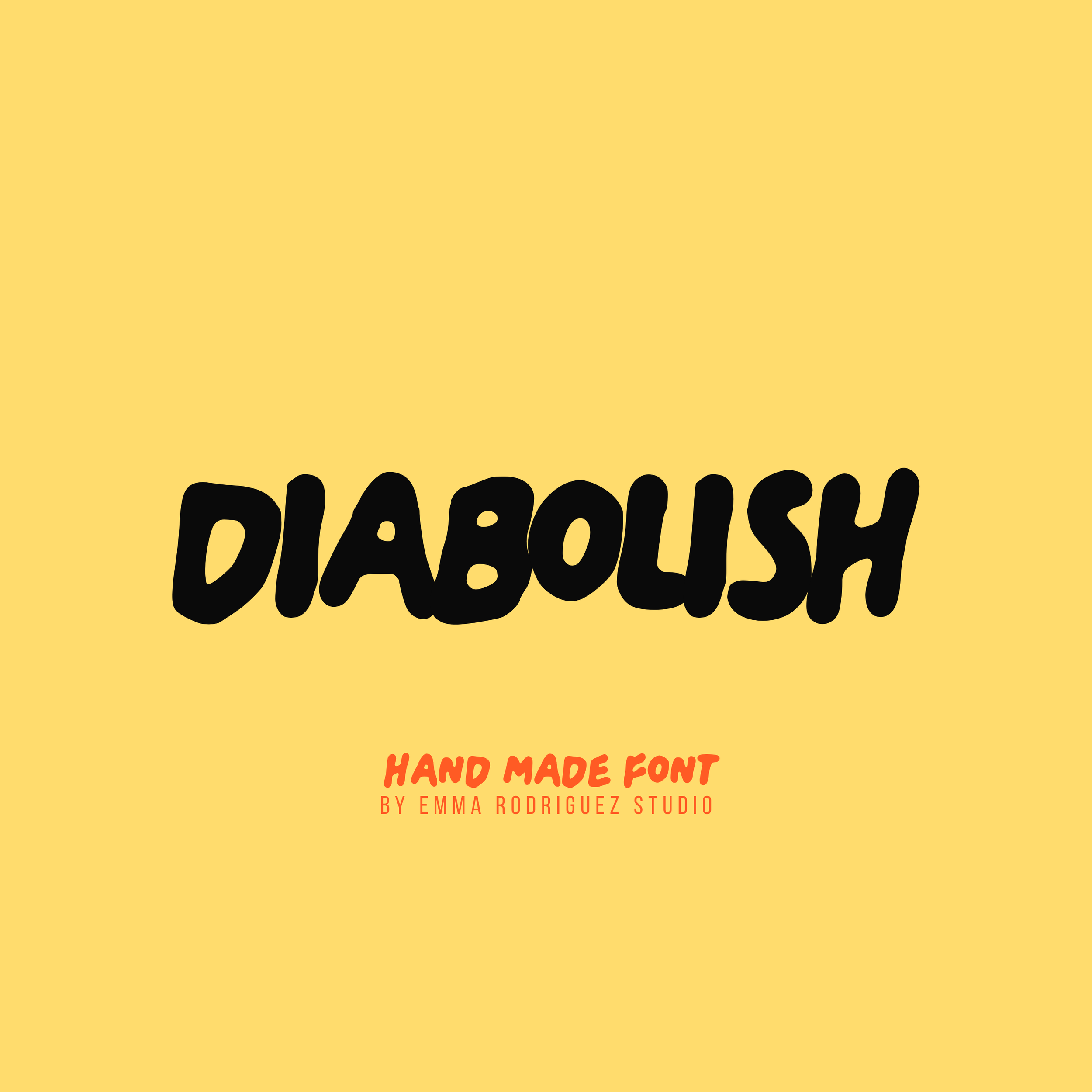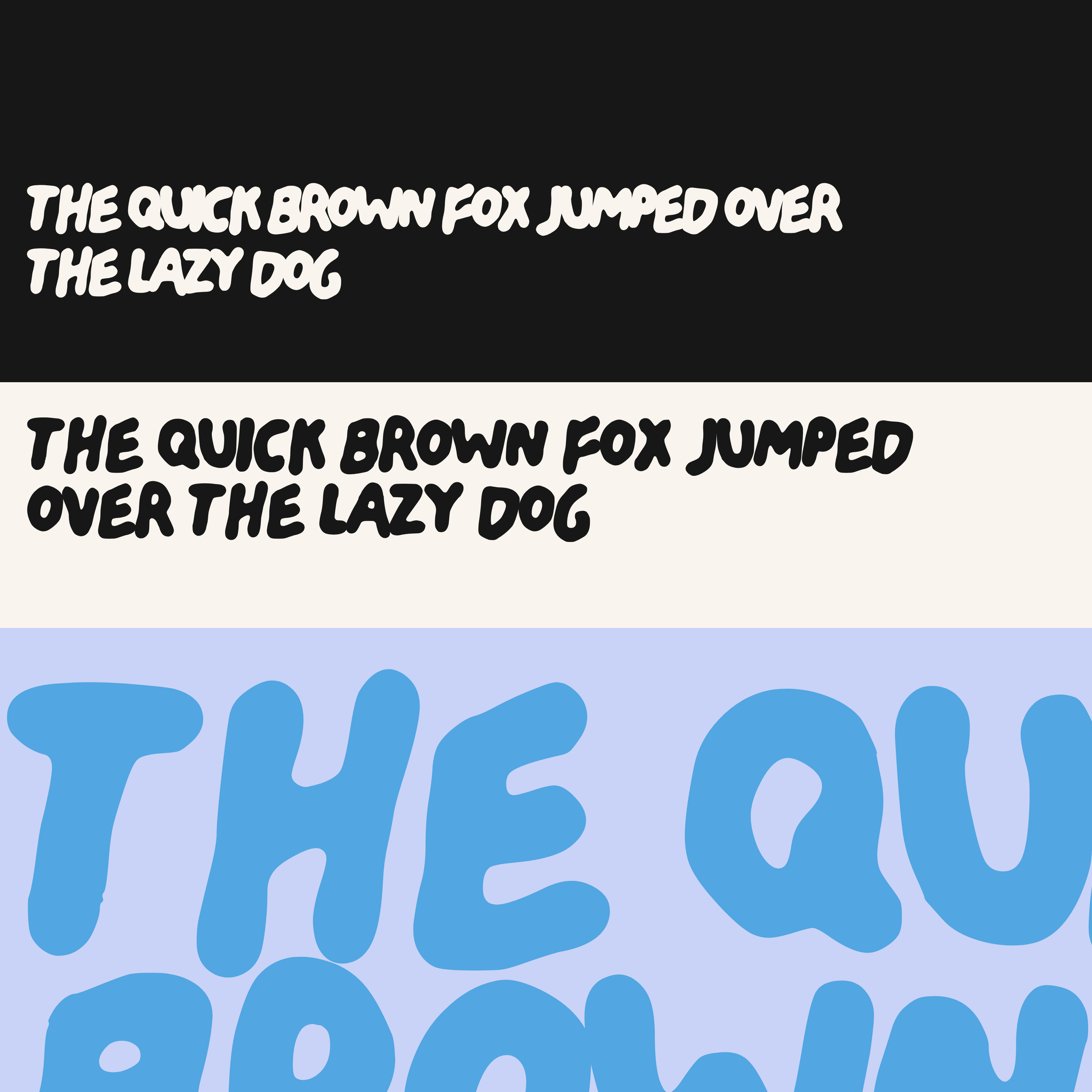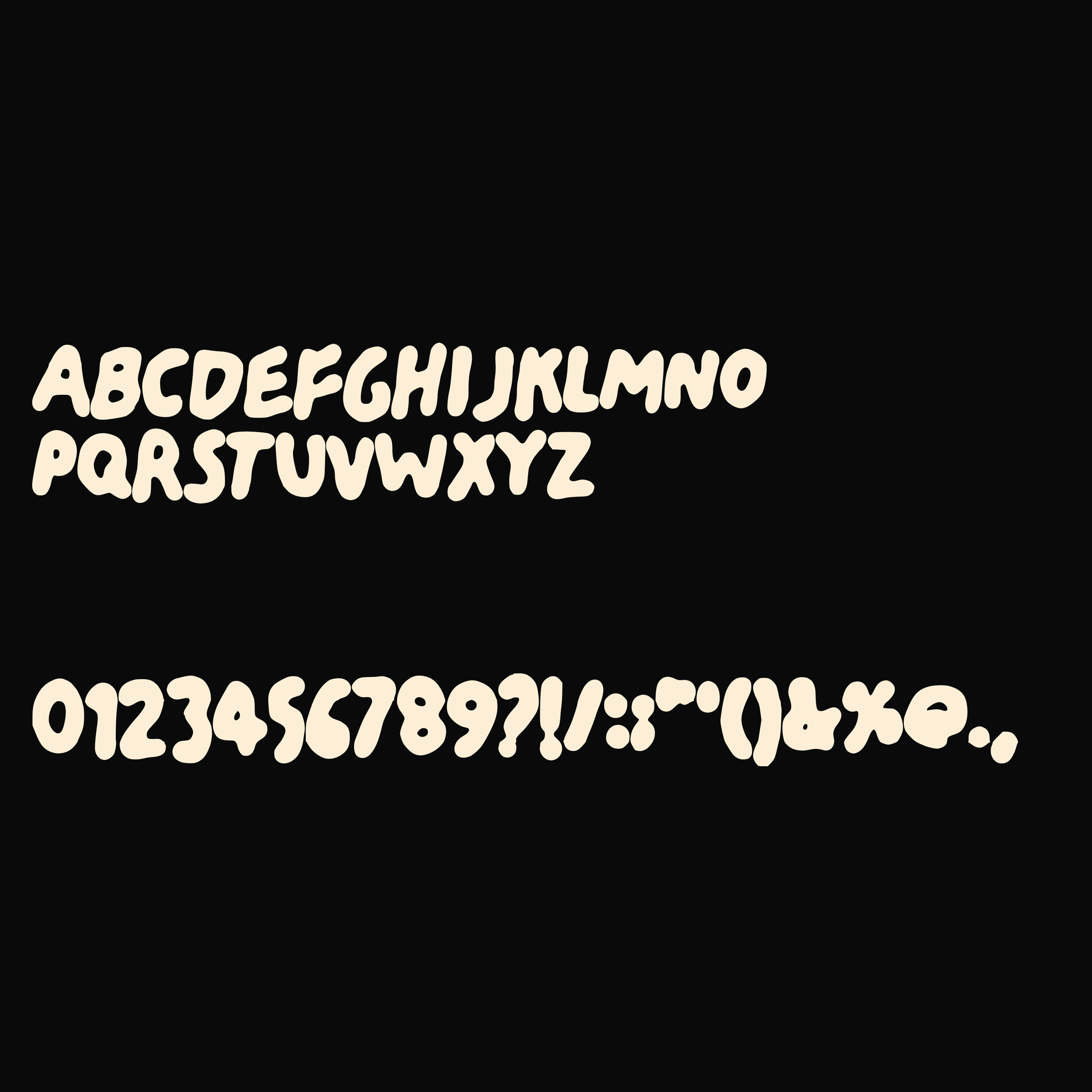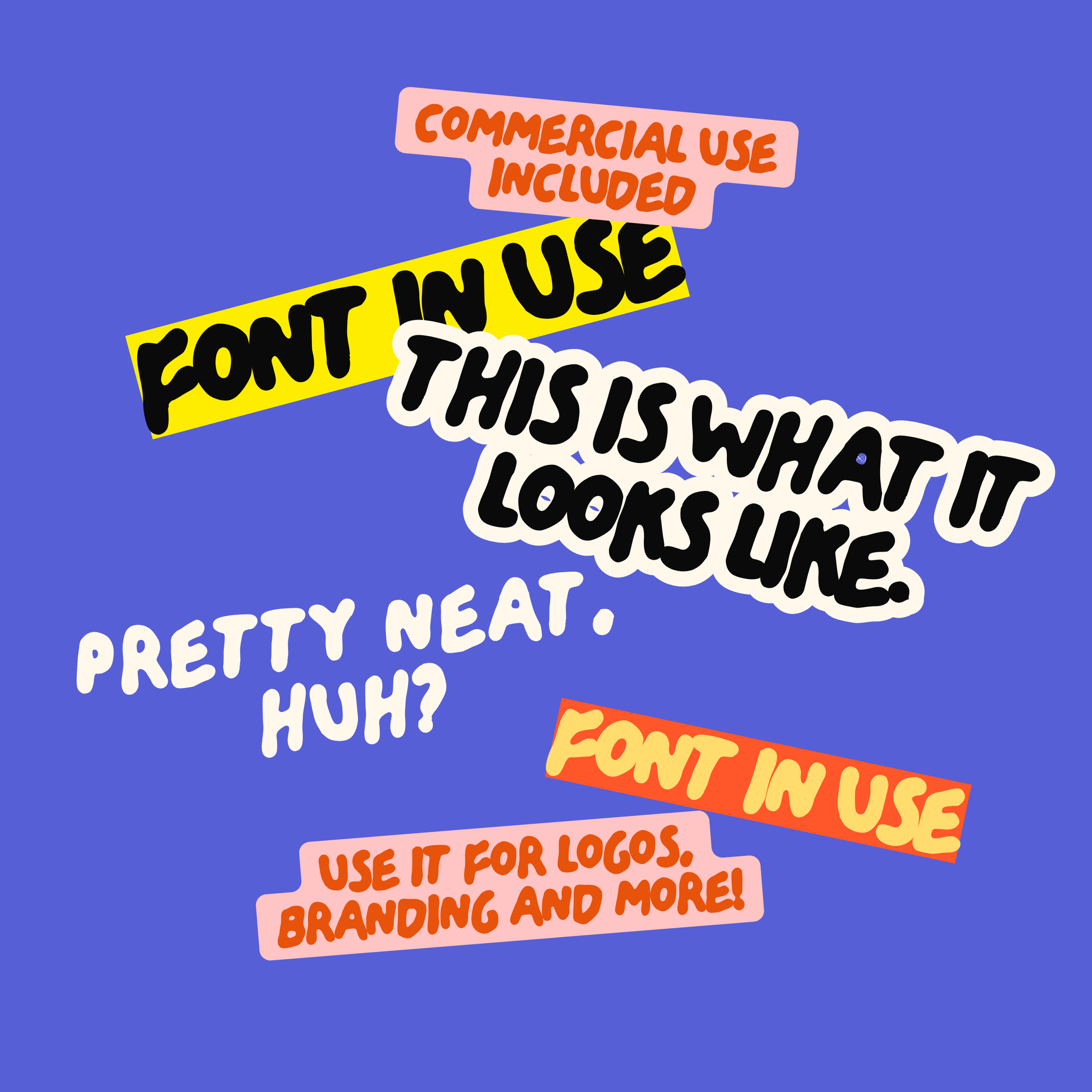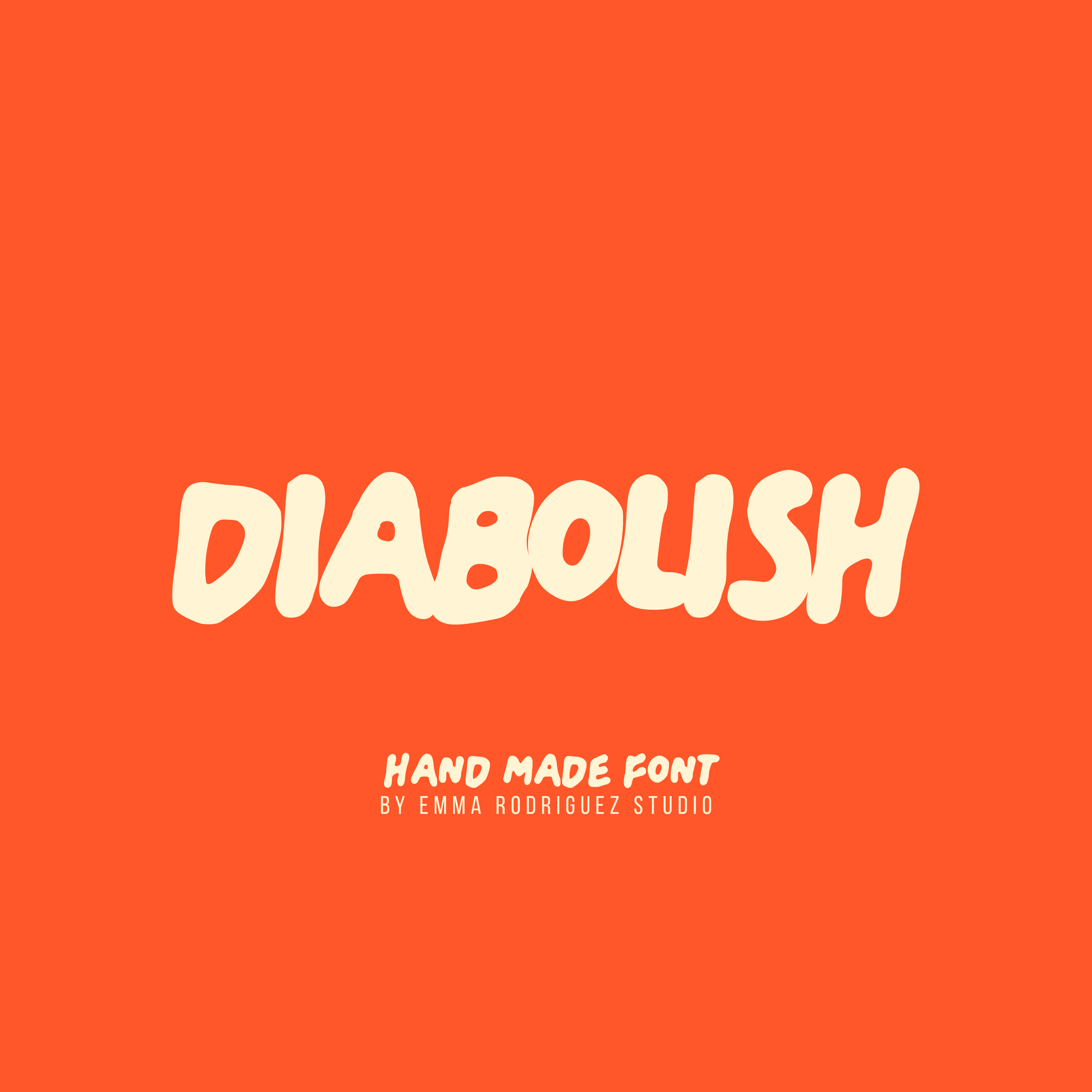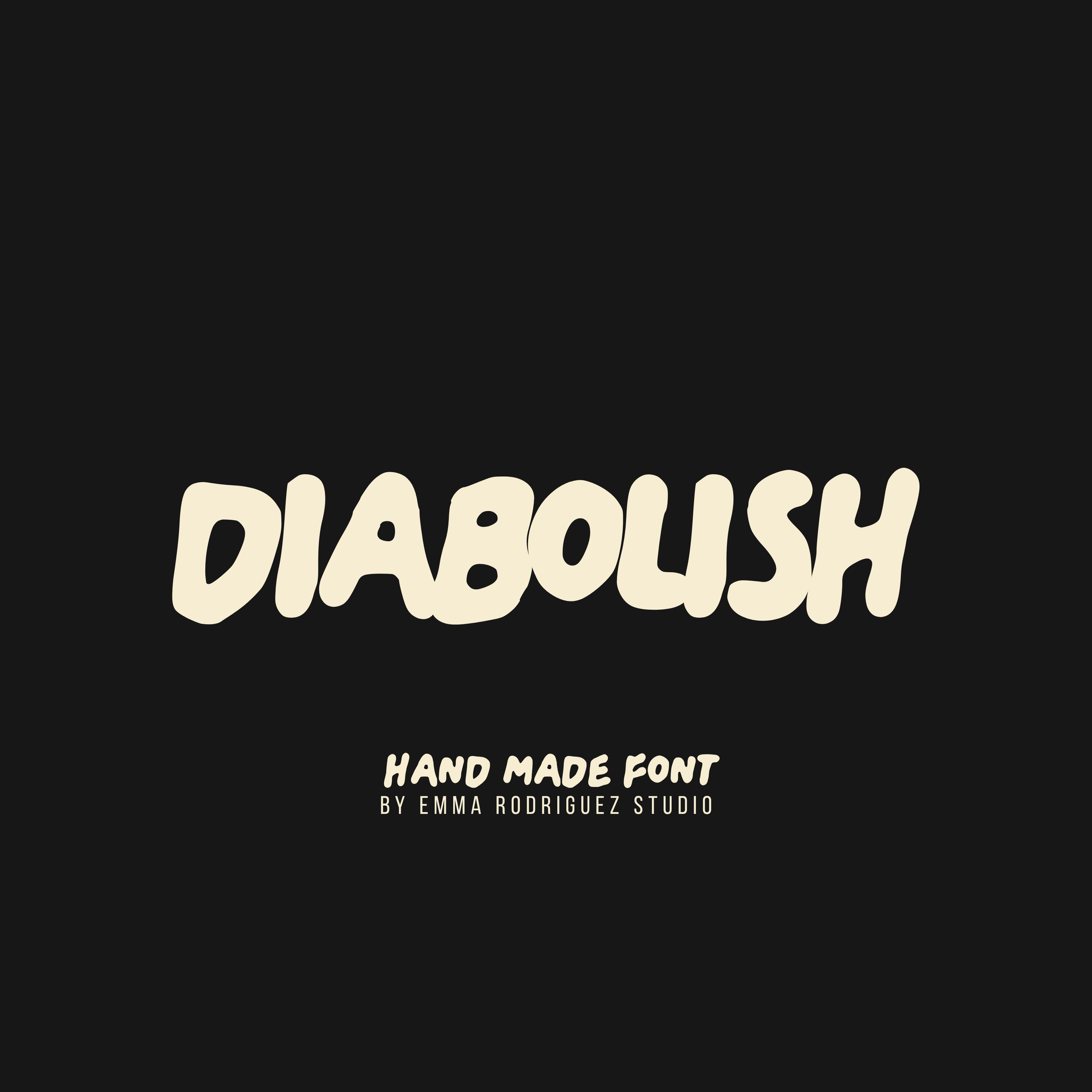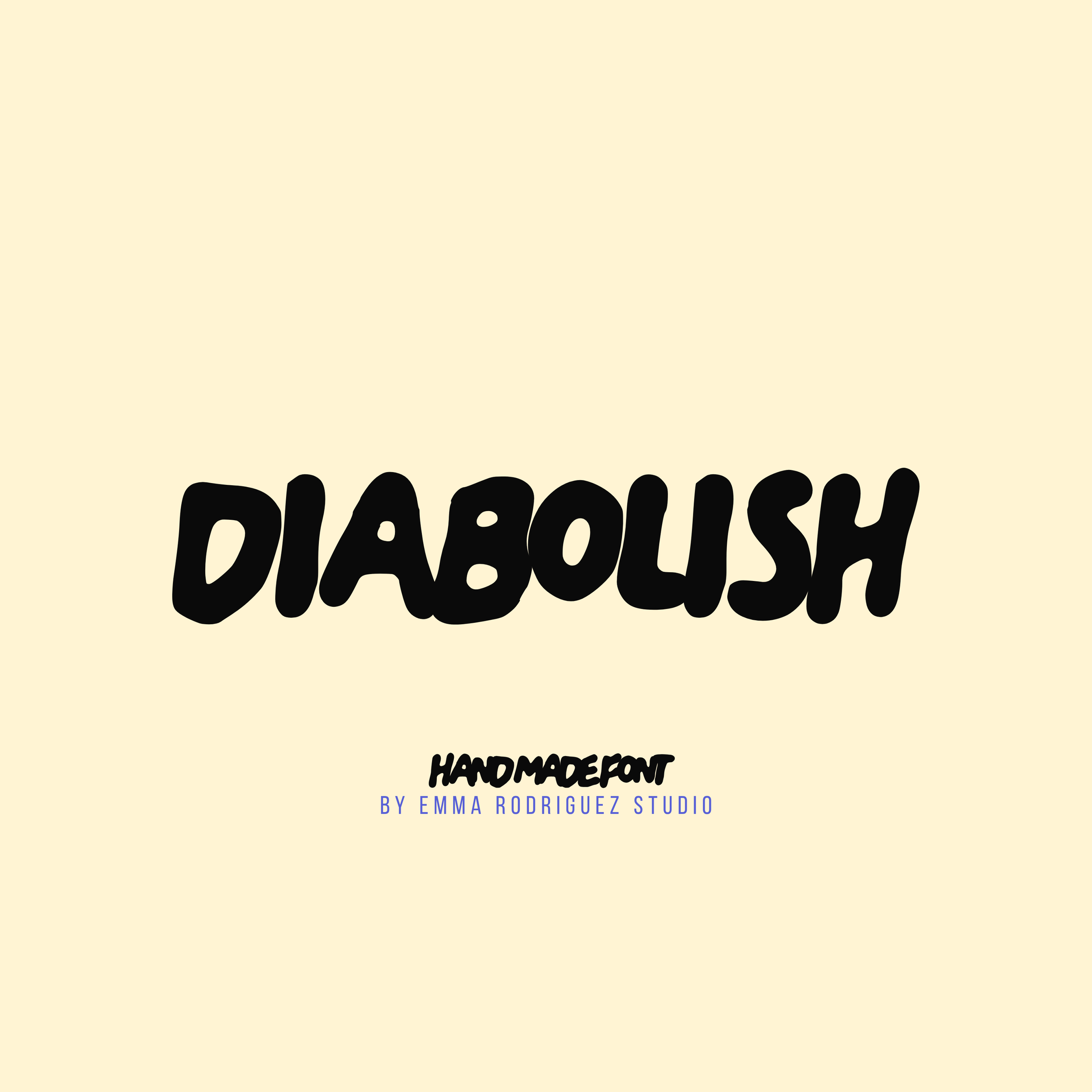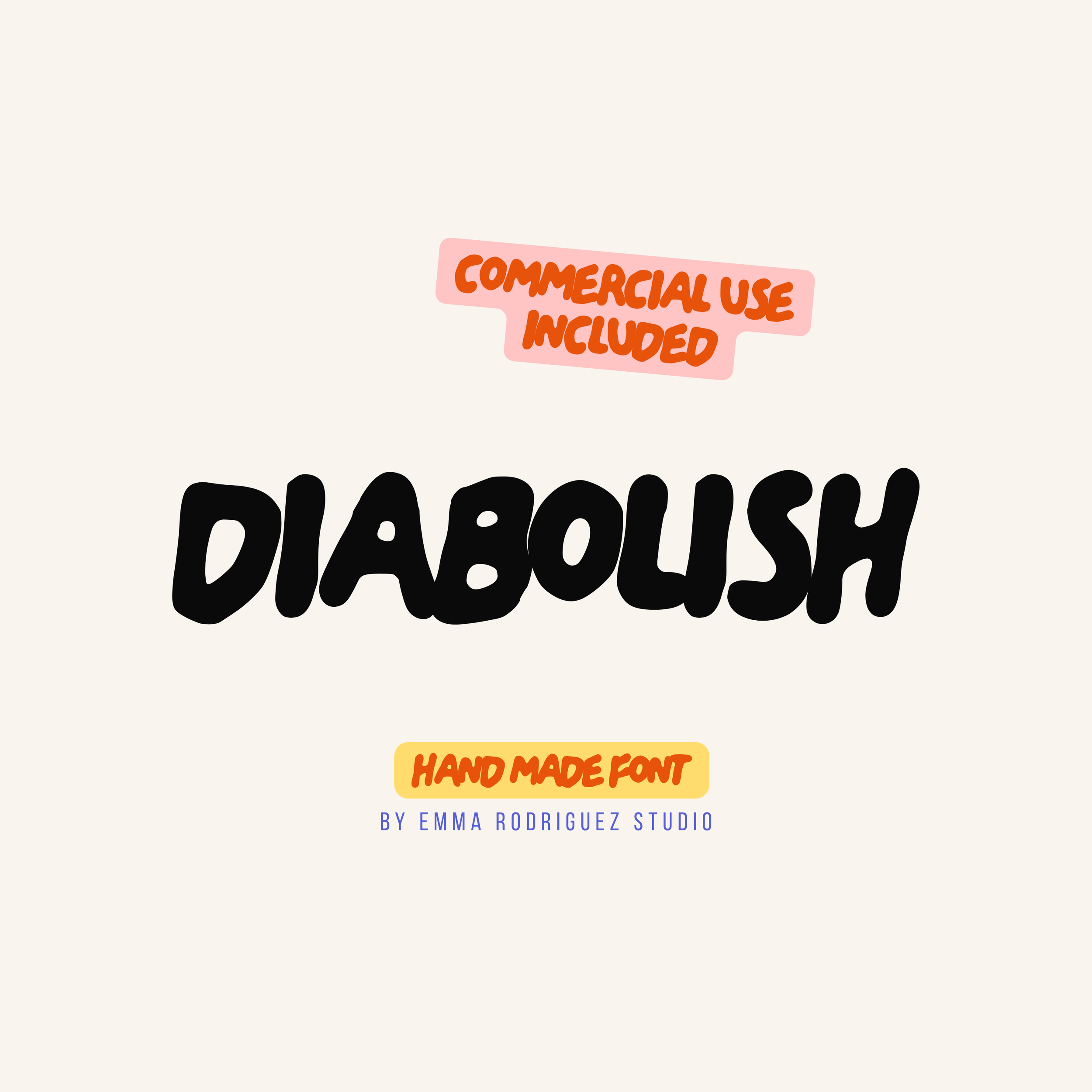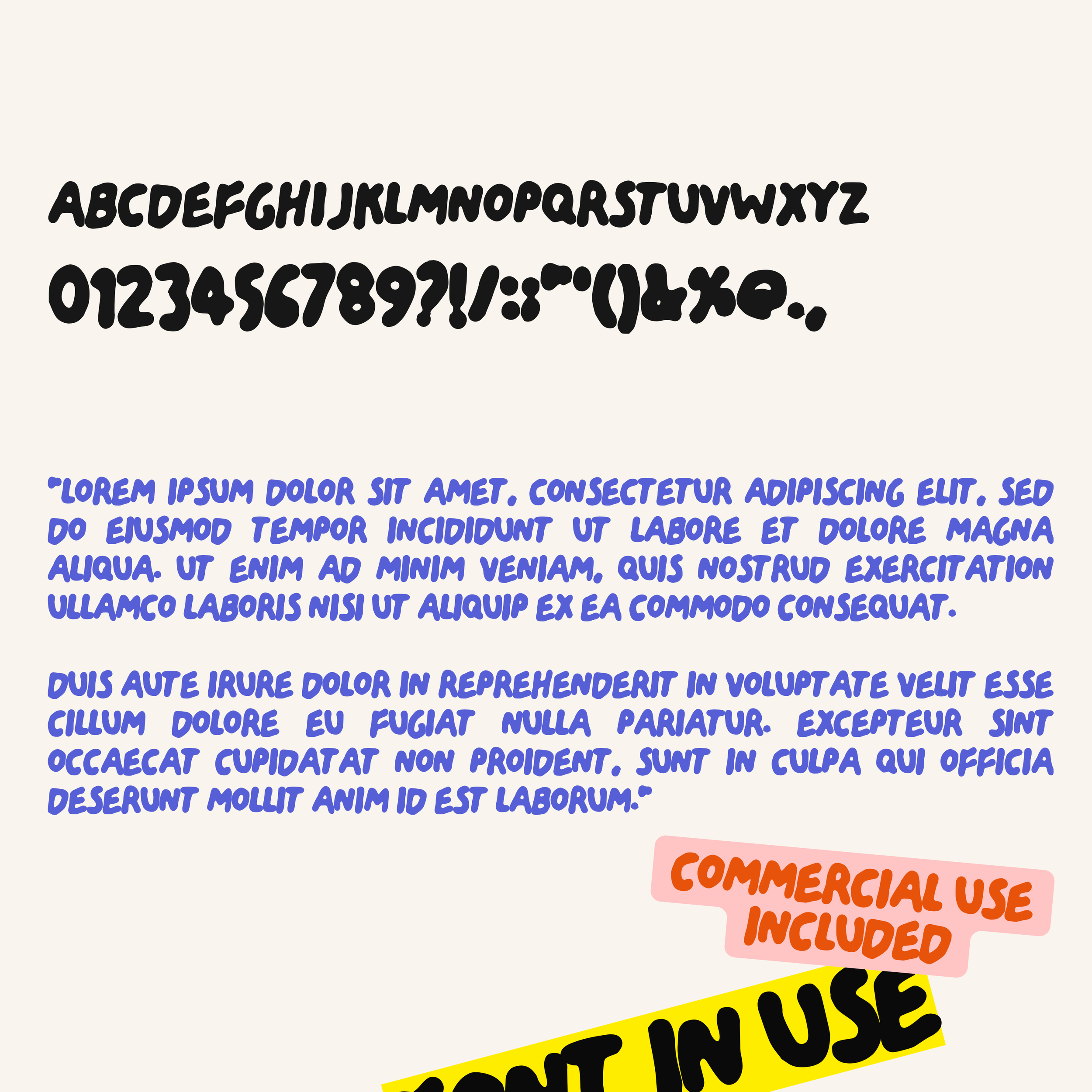
Diabolish Font - Chunky Bold Type
Diabolish is a bold hand drawn display font with chunky shapes, wonky proportions and a deliberately naive finish. Its irregular curves, unusual construction and imperfect letterforms give it a playful personality that feels much more distinctive than clean geometric typography.
This is an uppercase-only font, designed for graphic designers, illustrators, artists, poster makers, branding designers, small businesses and Etsy sellers creating expressive, personality driven work.
• Uppercase characters
• Numbers and punctuation
Please note that Diabolish is intentionally naive, handmade and imperfect. Letterforms, spacing, proportions, alignment and overall form may vary throughout the character set. Uneven shapes and awkward spacing are deliberate parts of the design rather than errors, and some manual kerning or letter placement may be useful depending on your layout.